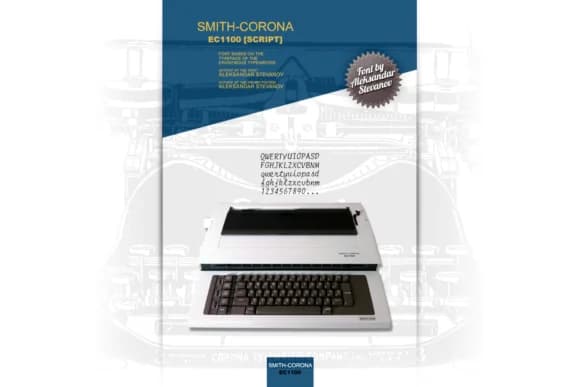
About Smith Font
Smith by astevanov is a vintage typewriter script that captures the authentic warmth and nostalgic character of mid-century penmanship. The handwritten aesthetic brings genuine, artisanal appeal to modern design work while maintaining excellent legibility across a range of applications and mediums.
This distinctive script font excels in projects where vintage charm meets contemporary design needs. Wedding invitation suites gain timeless elegance when lettered in Smith, while vintage product labels for artisanal goods and small-batch businesses showcase authentic character that resonates with conscious consumers. The font performs beautifully on DIY scrapbooking layouts, boutique skincare packaging, hand-lettered journal covers, and personal stationery where that typewriter-inspired quality adds warmth to the overall aesthetic. Greeting card designers and hand-lettering enthusiasts will appreciate how Smith balances artistic expression with functional readability across different design applications and printing methods.
Beyond special occasion design, Smith proves versatile for broader creative applications requiring personality and nostalgic appeal. The consistent letterforms work as body copy in specialty publications, menu designs for vintage-themed restaurants, and bespoke packaging for artisan businesses. Whether creating designs for clients who value authenticity or personal projects that celebrate handmade aesthetics, Smith delivers nostalgic character without sacrificing modern professionalism and clarity. This typewriter-inspired script brings depth and personality to projects that need genuine, vintage-inflected appeal. Discover Smith on Creative Fabrica and transform your designs with authentic handwritten elegance.
- Elegant, Flowing, Smith Corona Ec1100 Script
Smith Font is a script font that shines as a display or heading face. Pair it with a clean sans-serif or serif font for body text β the contrast creates a clear hierarchy while the two styles stay balanced and easy to read.